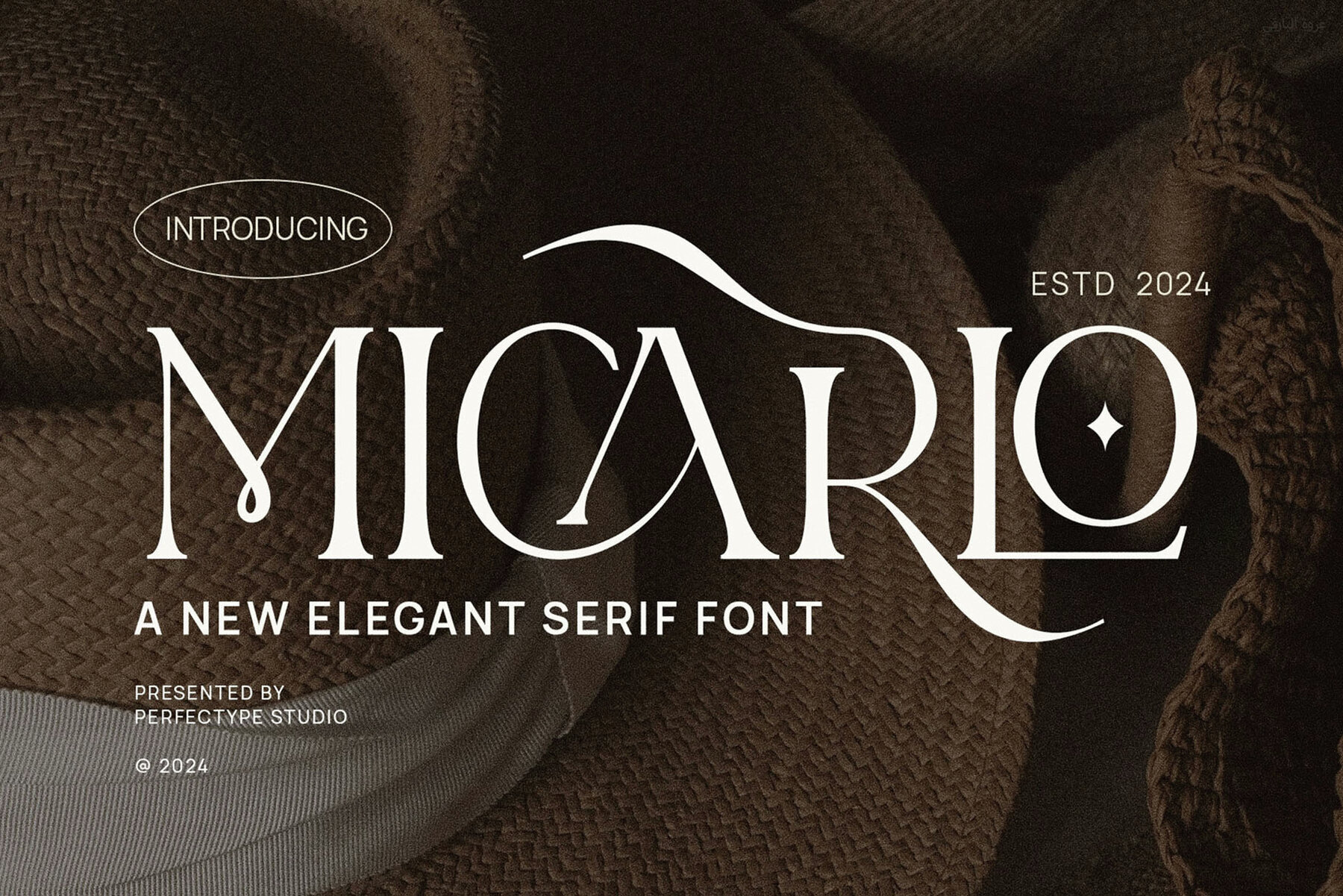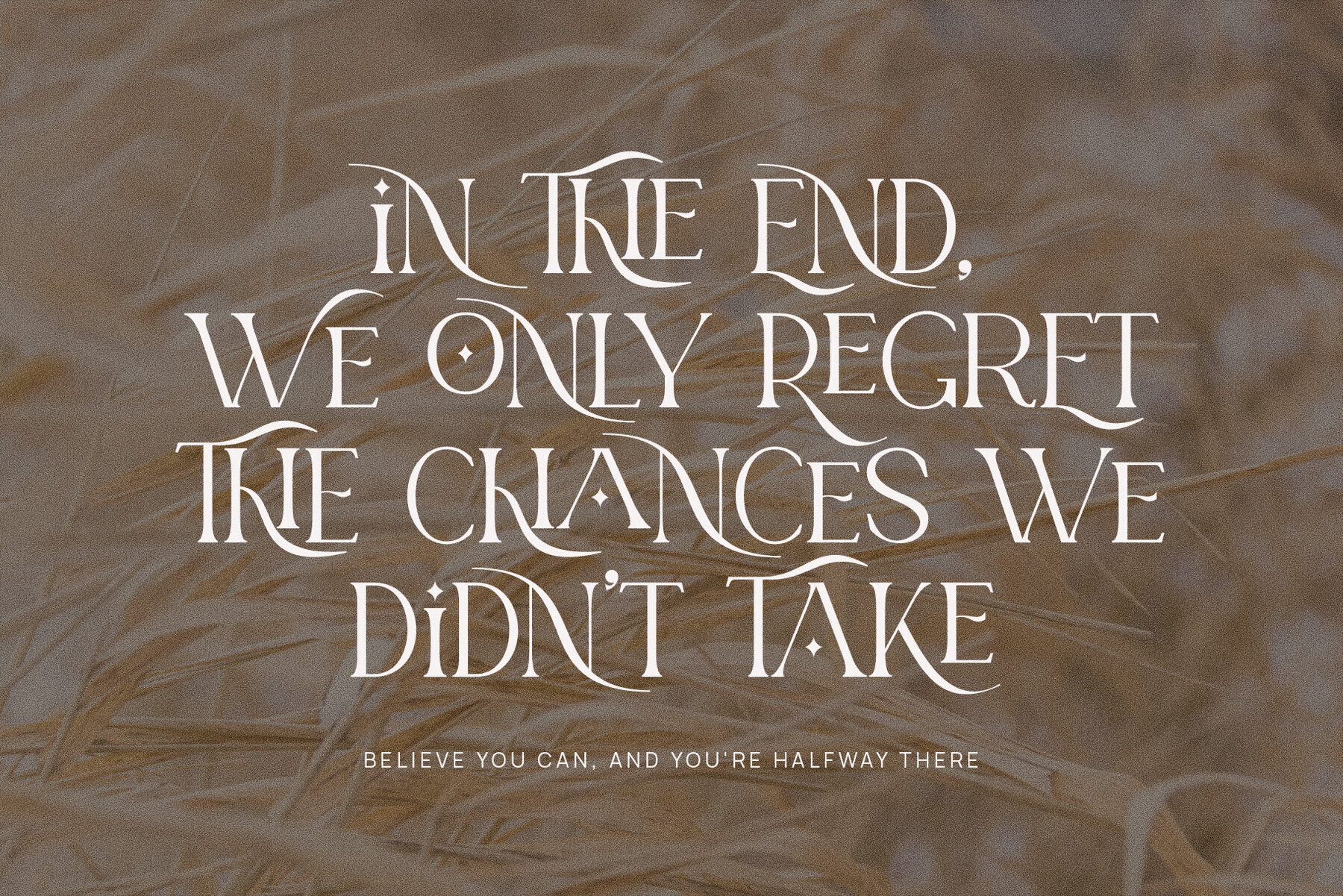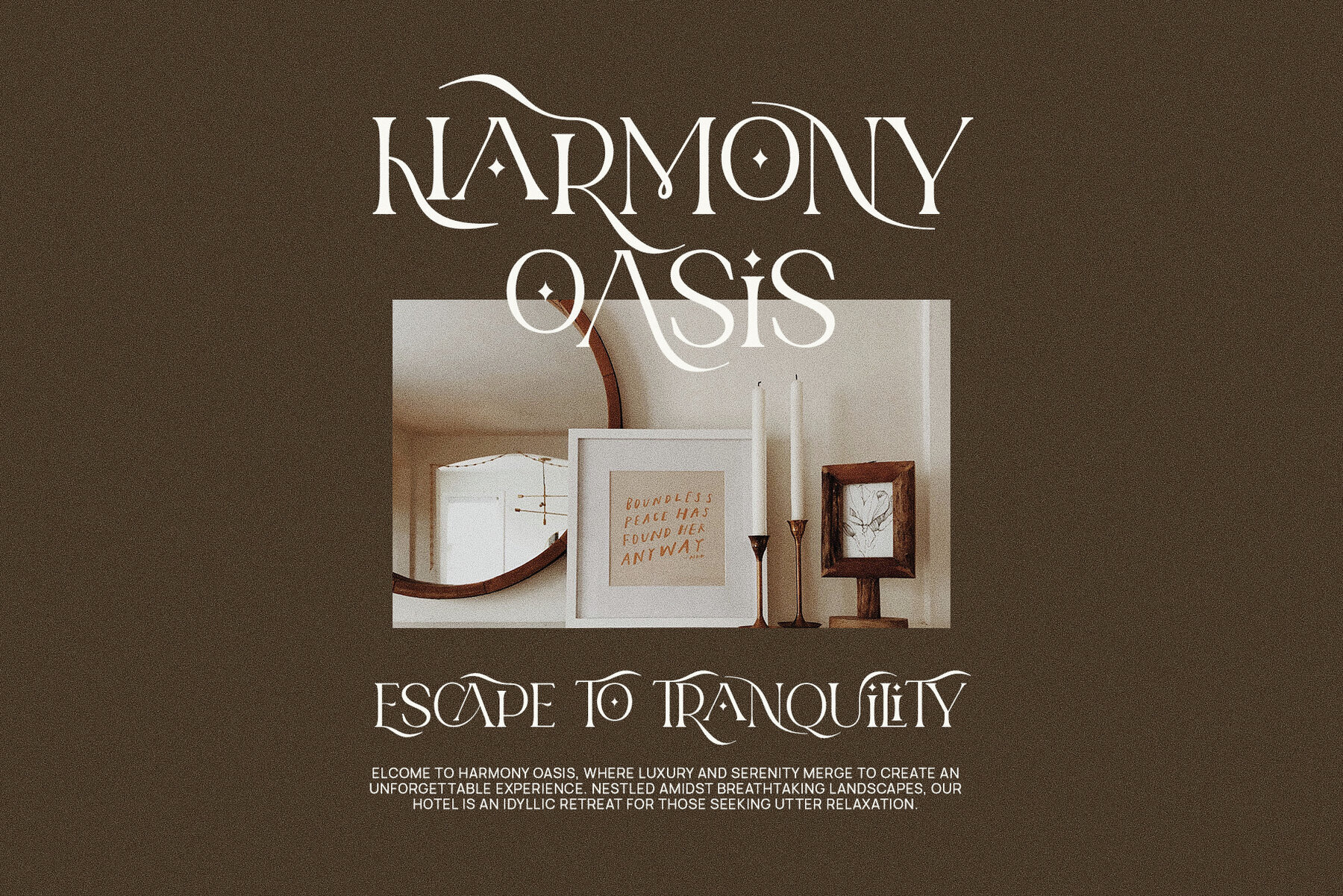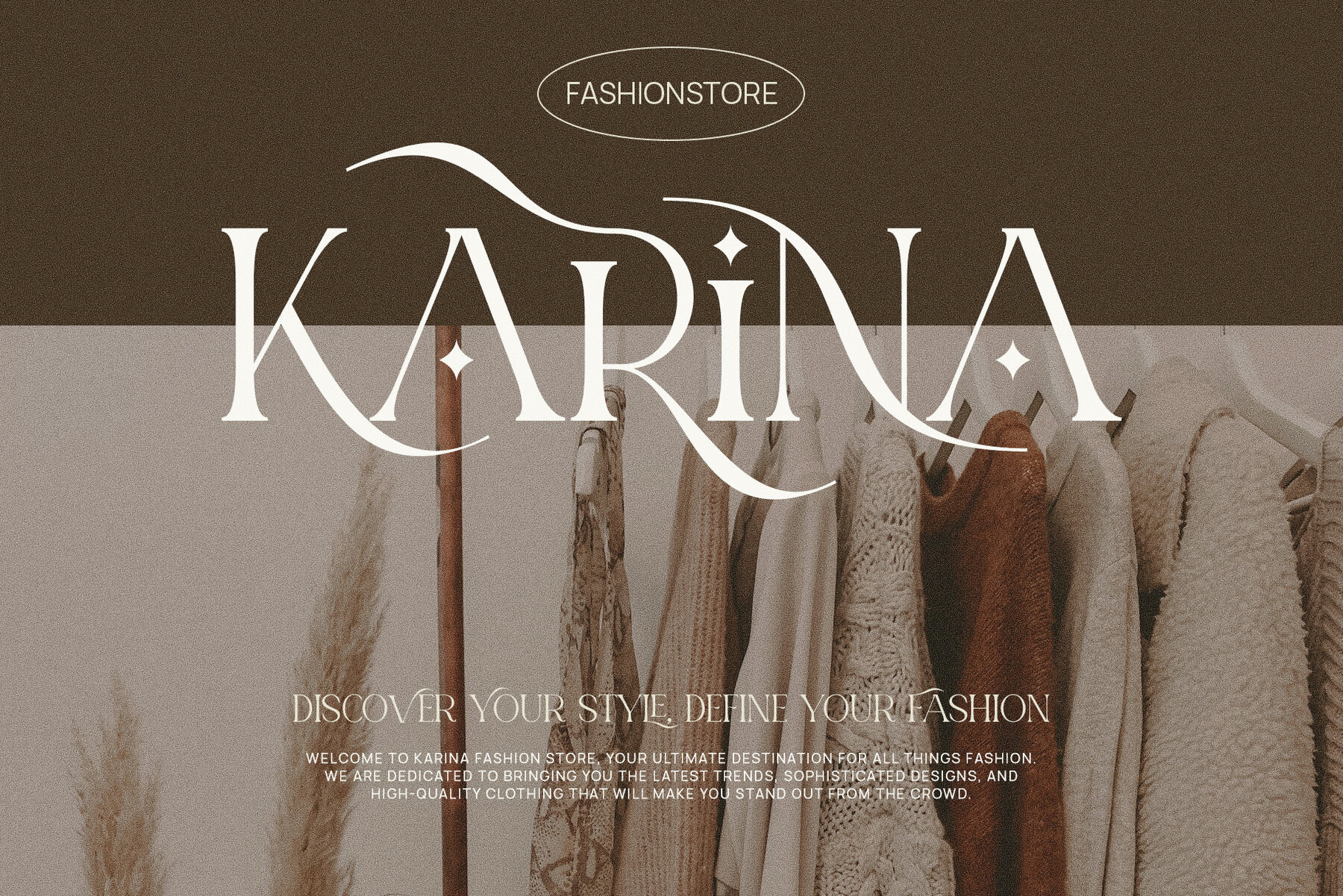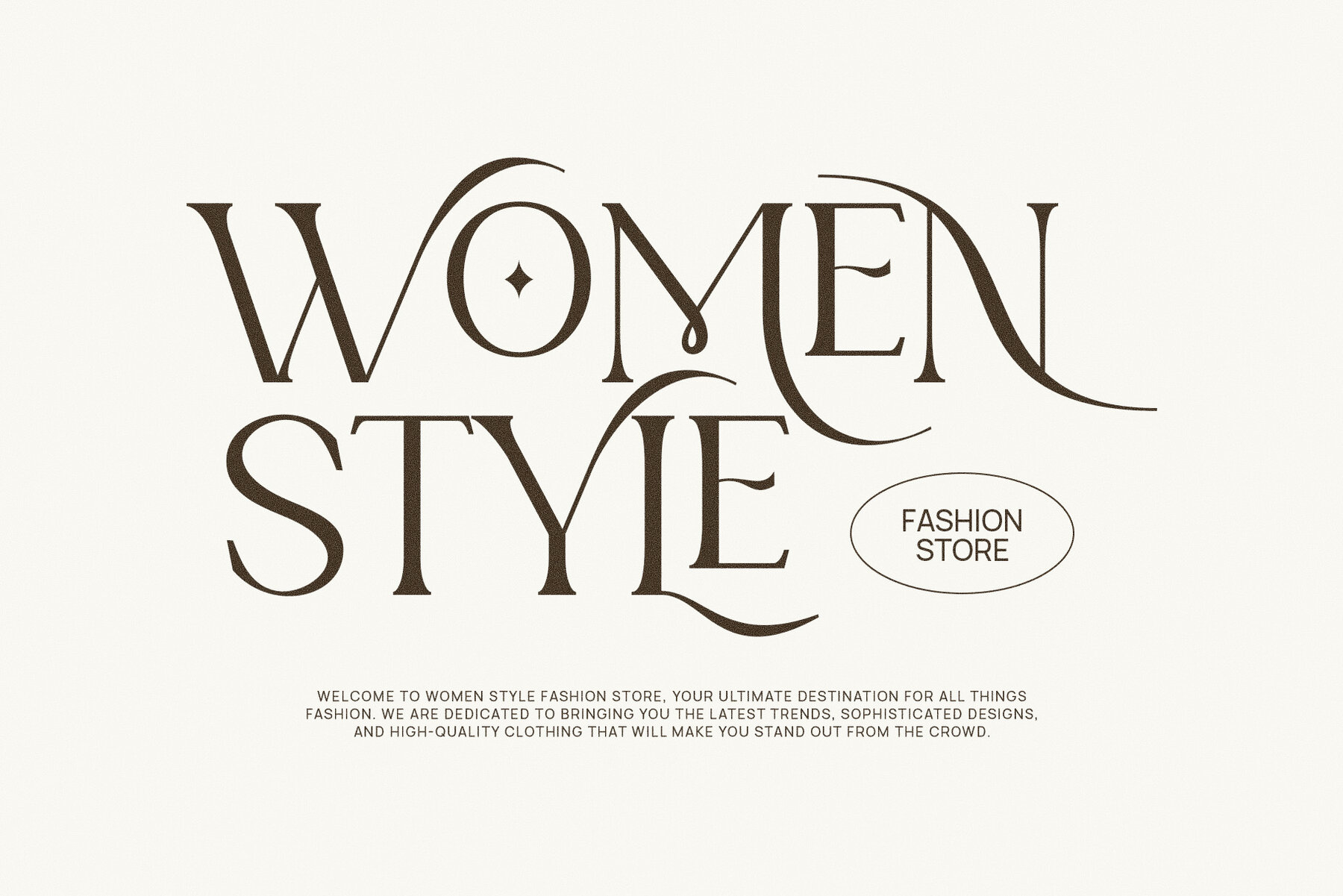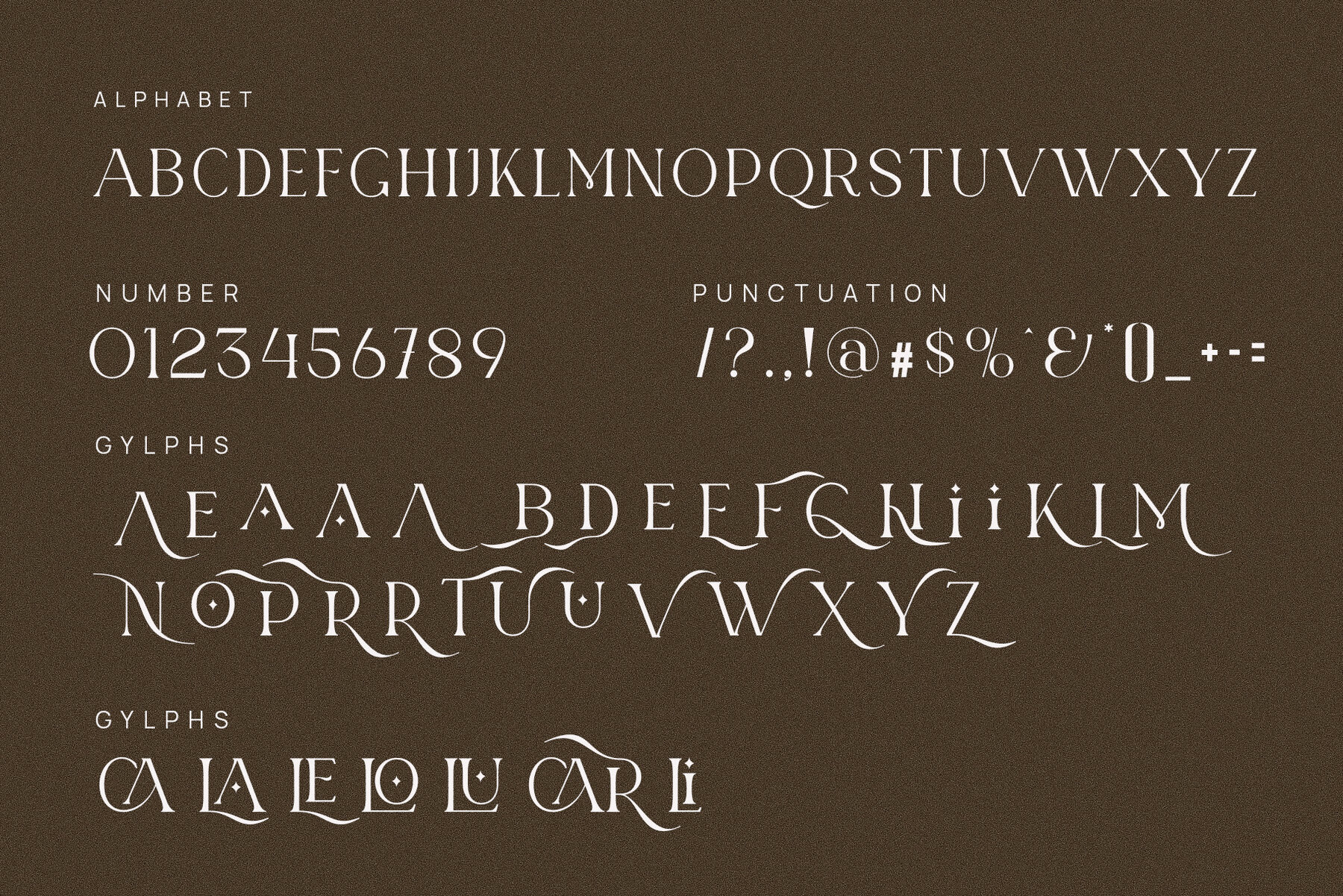
Micarlo Font
Micarlo
Micarlo Elegant Serif Font embodies the perfect blend of classic sophistication and contemporary design. Its luxurious serifs and meticulously crafted letterforms provide a high-end aesthetic suitable for any project. The font's clean, modern lines are offset by intricate details, making it an ideal choice for designs that need to convey both style and substance. Signature ligatures enhance the font's harmony, offering a unique visual appeal that turns each letter into a small masterpiece. Micarlo manages to capture both timeless elegance and the fluidity of modern design, making it versatile across various creative applications.
Ideal for logos, branding, high-end magazines, or luxury product packaging, Micarlo brings a sense of prestige and elegance to any project. Its high readability, combined with decorative touches, ensures effectiveness in both large headlines and smaller body text. Micarlo stands out by transcending fleeting design trends, offering a touch of sophistication that is both memorable and stylish. Whether you are creating a visual identity for an upscale brand or developing an impactful advertisement, Micarlo Elegant Serif Font delivers your message with unmatched elegance and flair.